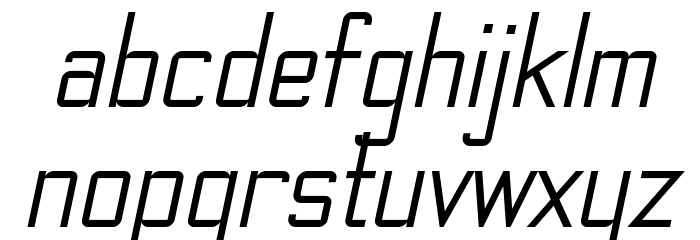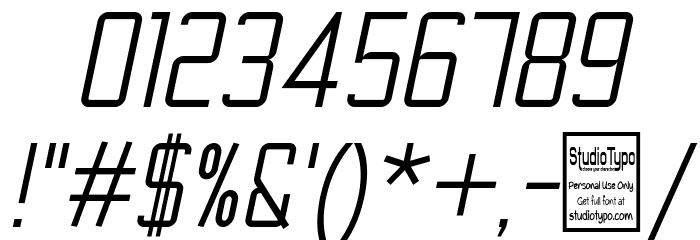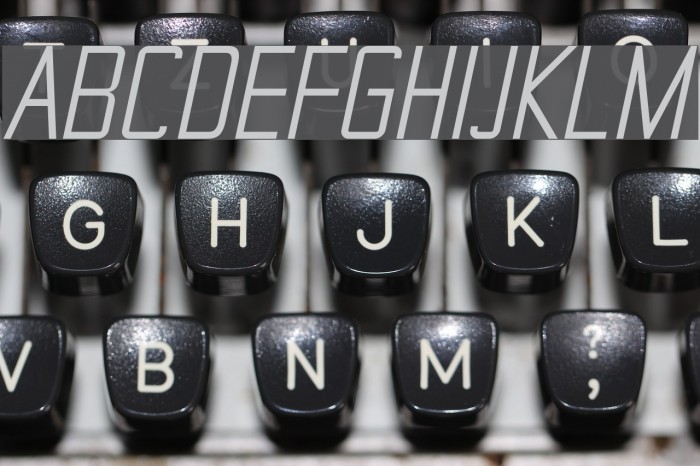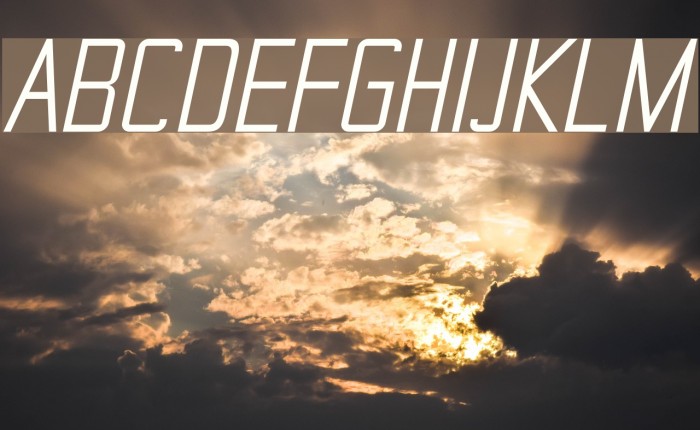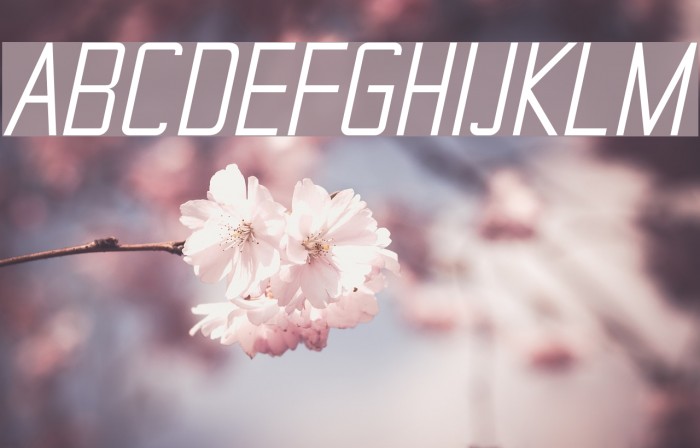
TheMatic Italic Font
This font features a sleek, modern design with a distinct italic slant, giving it a dynamic and forward-moving appearance. The characters are elongated and slightly condensed, creating a streamlined look that is both stylish and functional. The uniform stroke width throughout the characters provides a clean and consistent aesthetic, making it suitable for various design applications. The uppercase and lowercase letters maintain a harmonious balance, while the numerals and special characters are designed to complement the overall style. This font is ideal for projects that require a contemporary and professional touch.
A sleek, modern italic font with a dynamic and streamlined design.
- Proposed Projects: Ideal for branding, advertising, digital media, and editorial design projects.
- Width: Condensed
- Use Case: Headlines, Logos, Digital Media